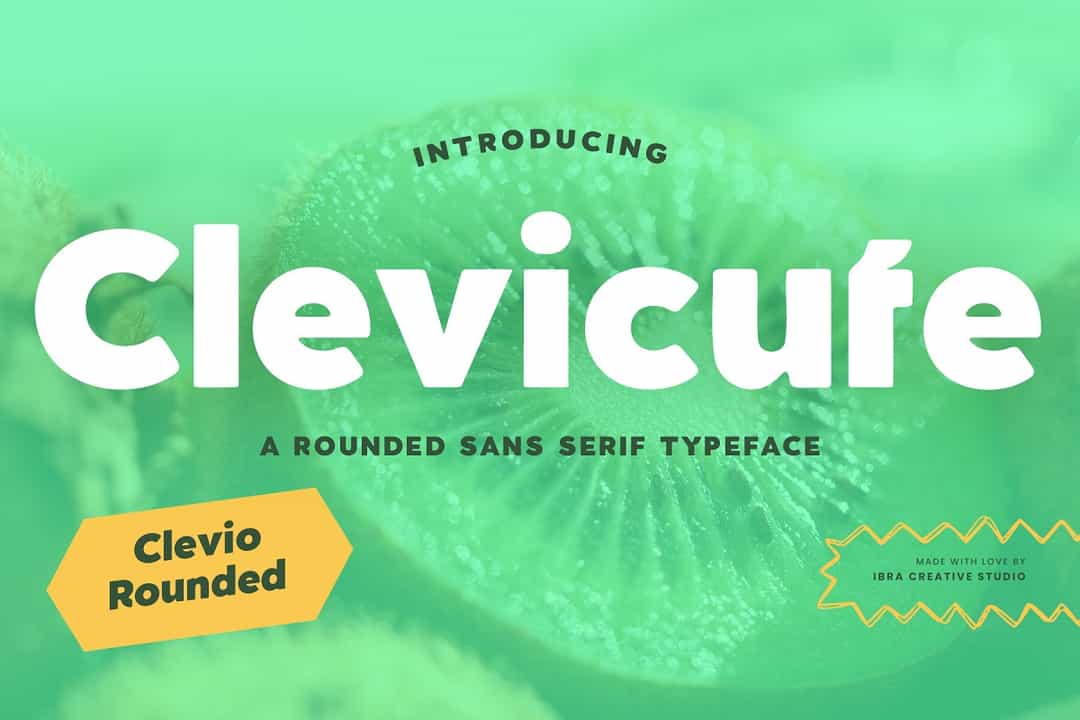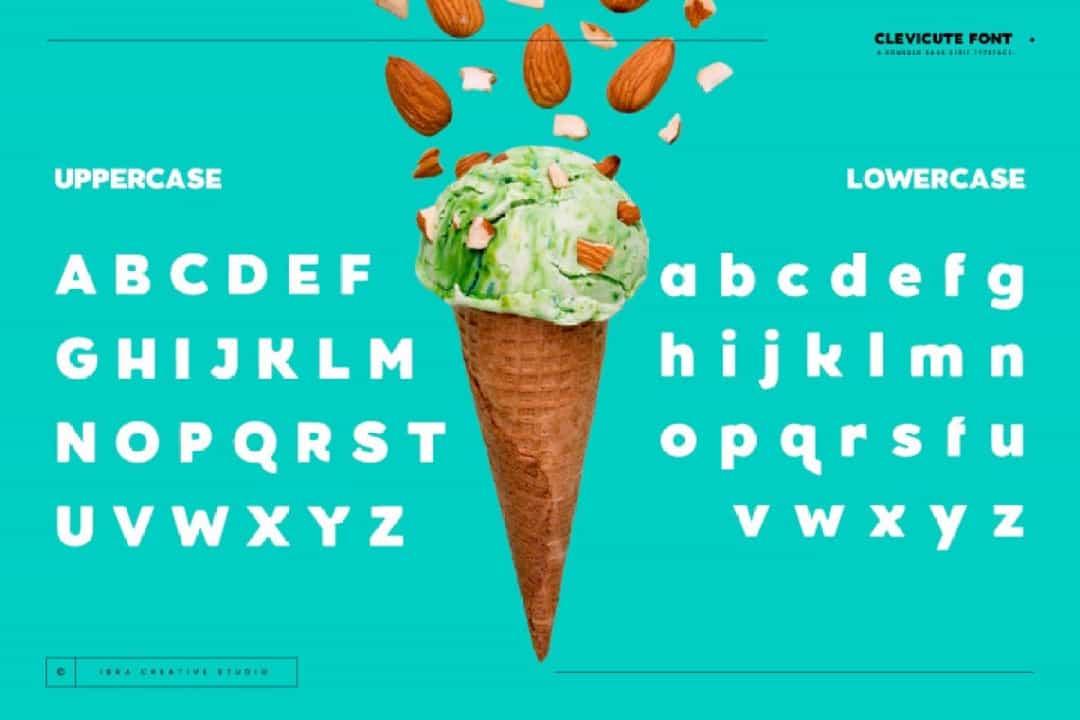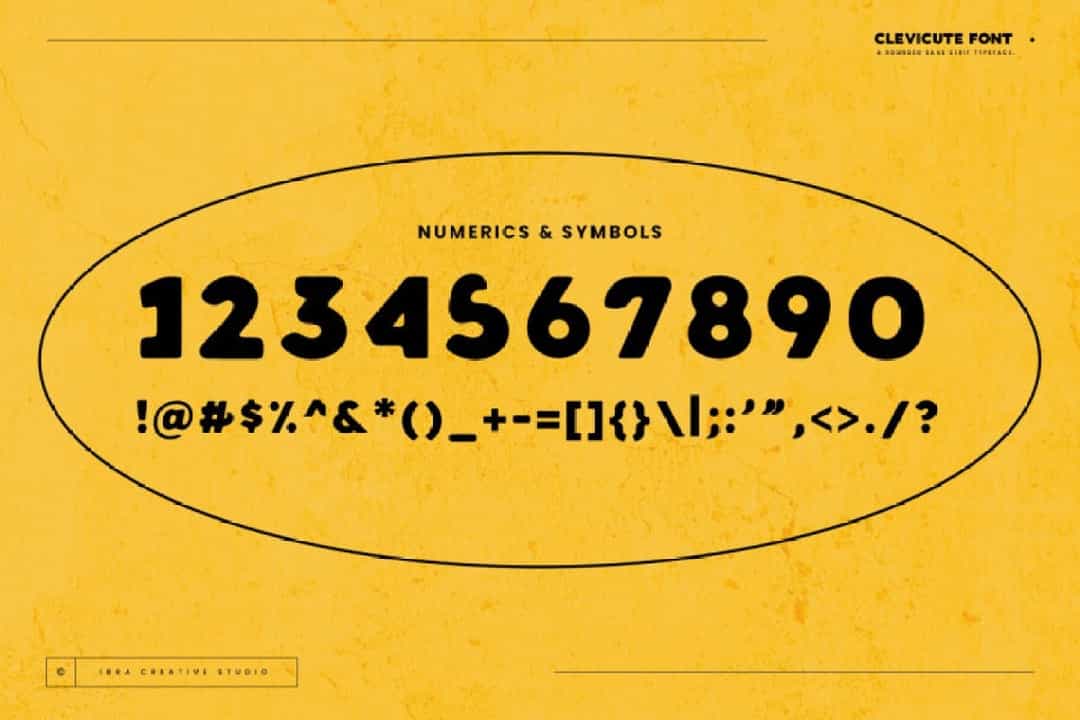
Clevicute, a sans-serif rounded typeface, radiates with warmth due to its soft curves and harmonious proportions. The soft corners give this font its characteristic fun-and-warm character; its rounded ends add comforting gestures. Clevicute makes an excellent choice when looking for balance between contemporary aesthetics and warm and welcoming impressions in design projects; headlines, branding or digital interfaces using Clevicute can add some visual humour with its versatility in visual communication.